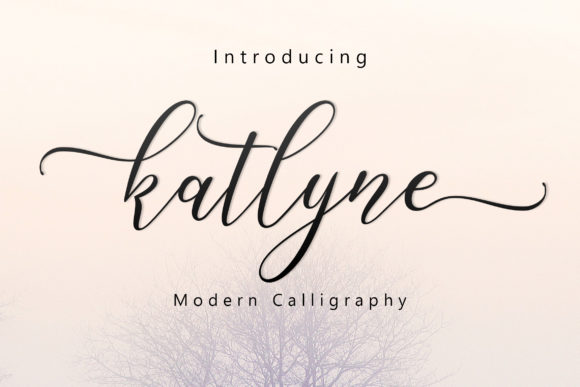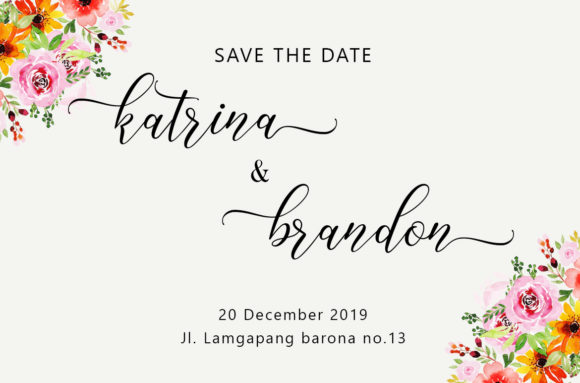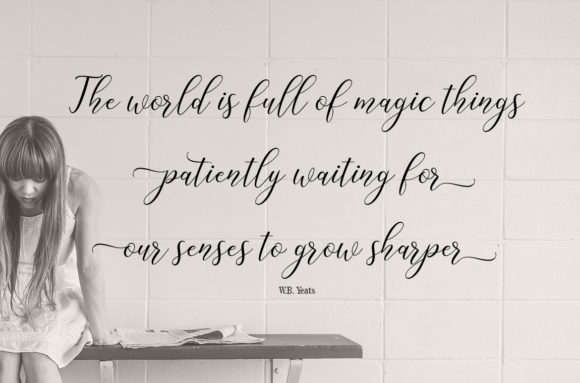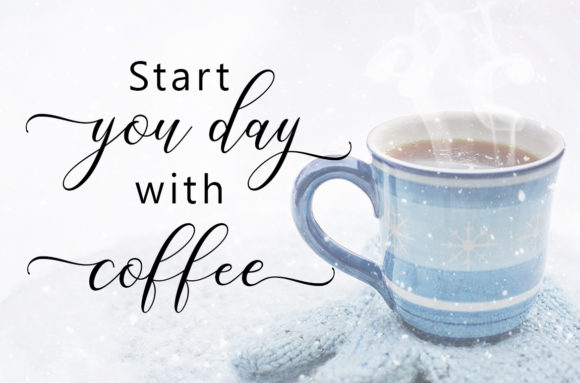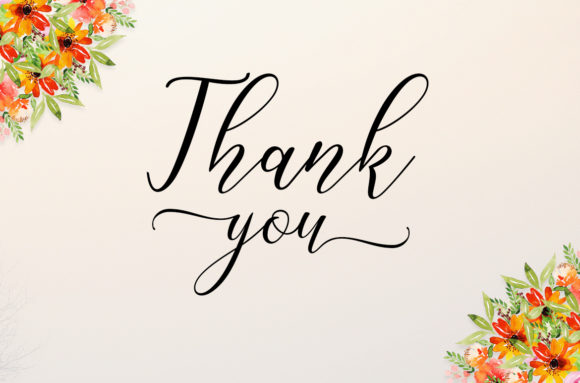
Katlyne Script Font
About Katlyne Script Font
The Katlyne is a beautiful handwritten typeface. It includes elegant swashes which will add an feminine, handwritten feel to your designs.